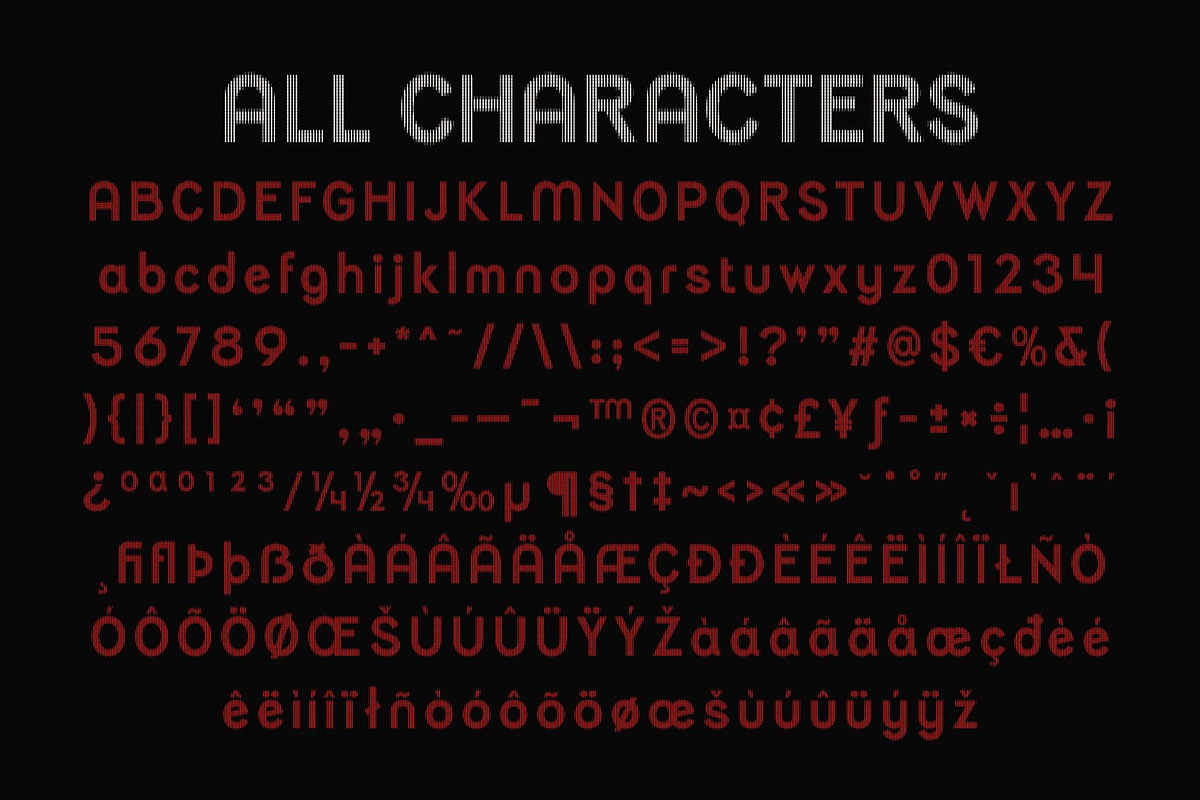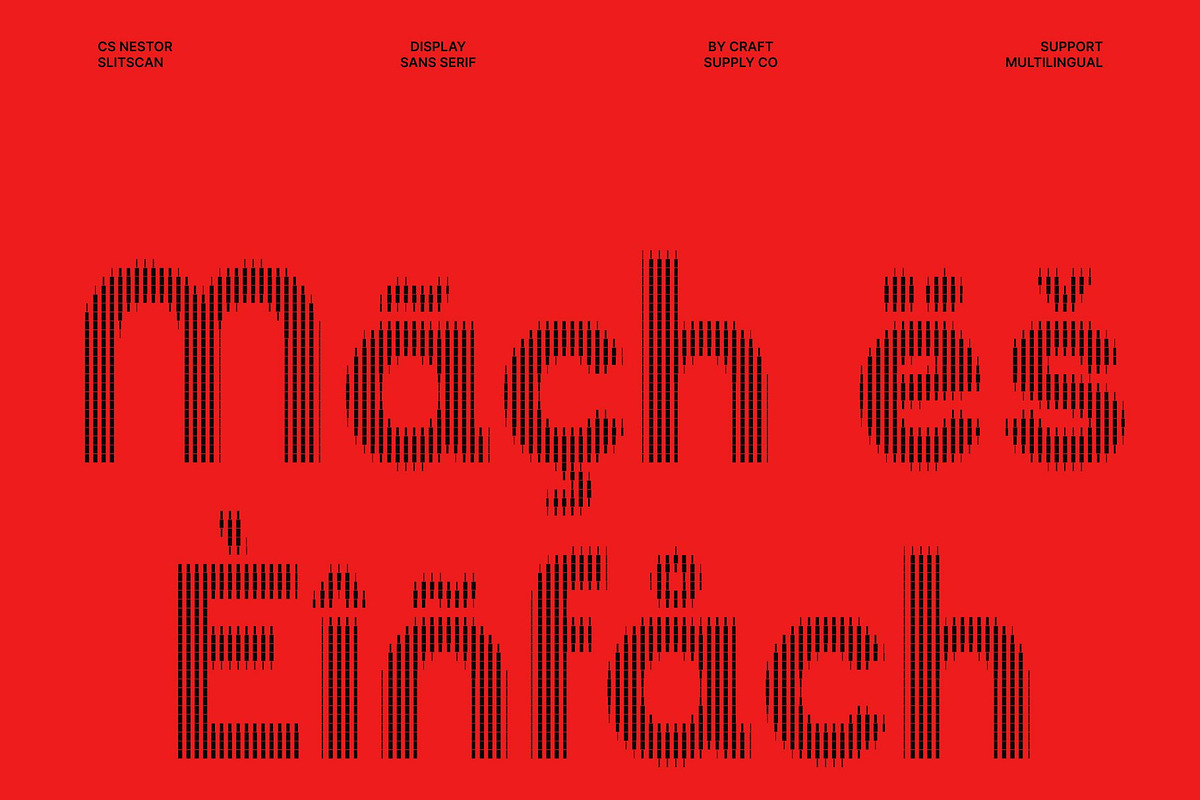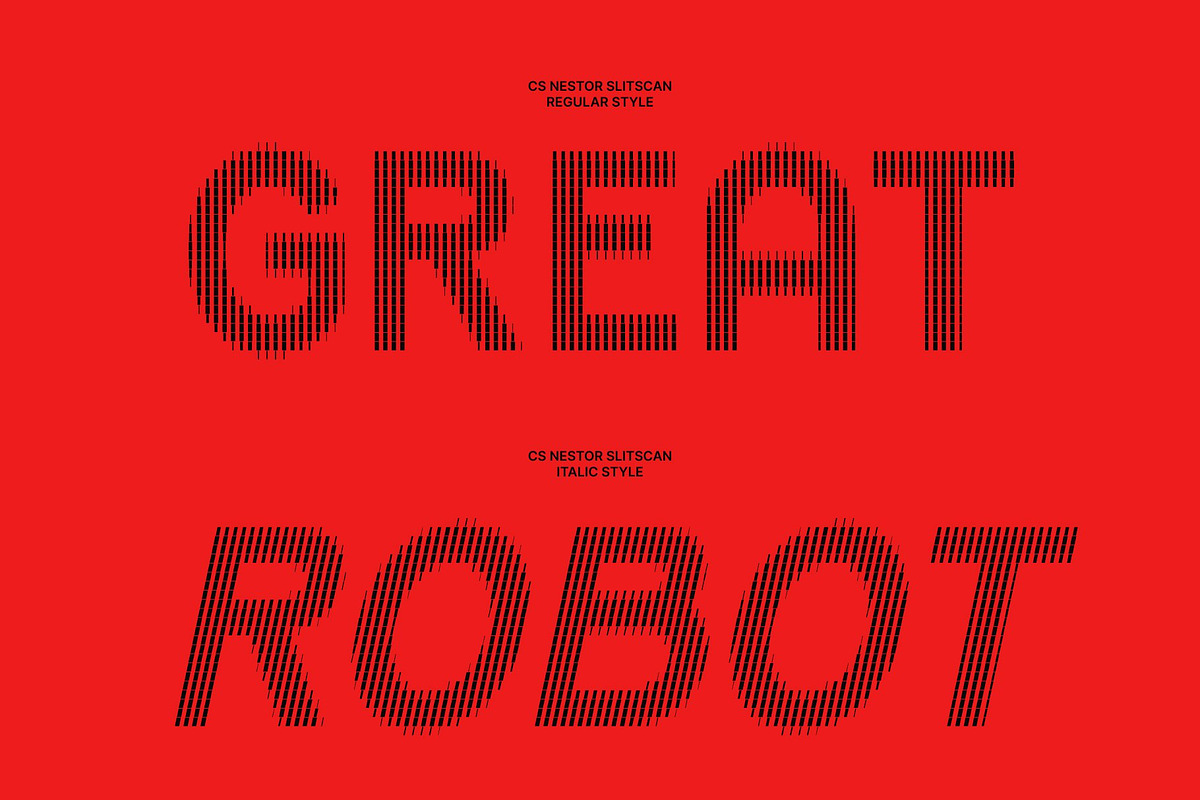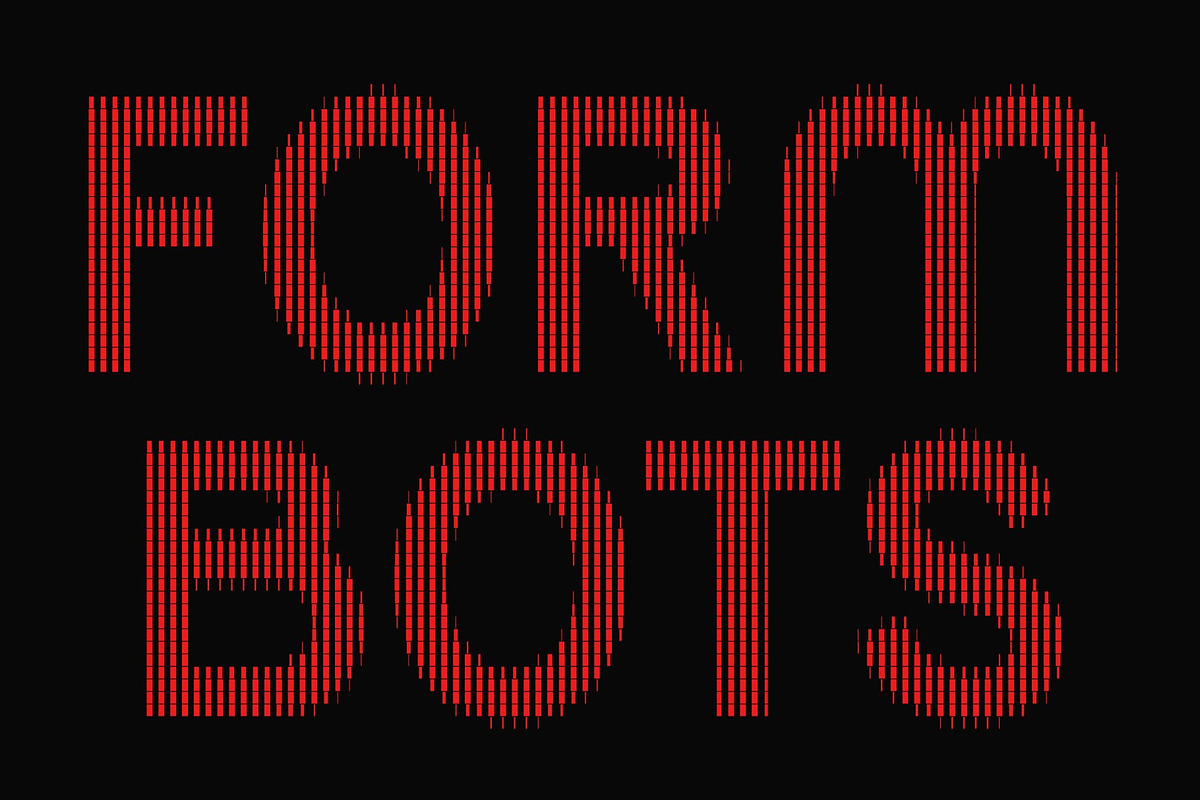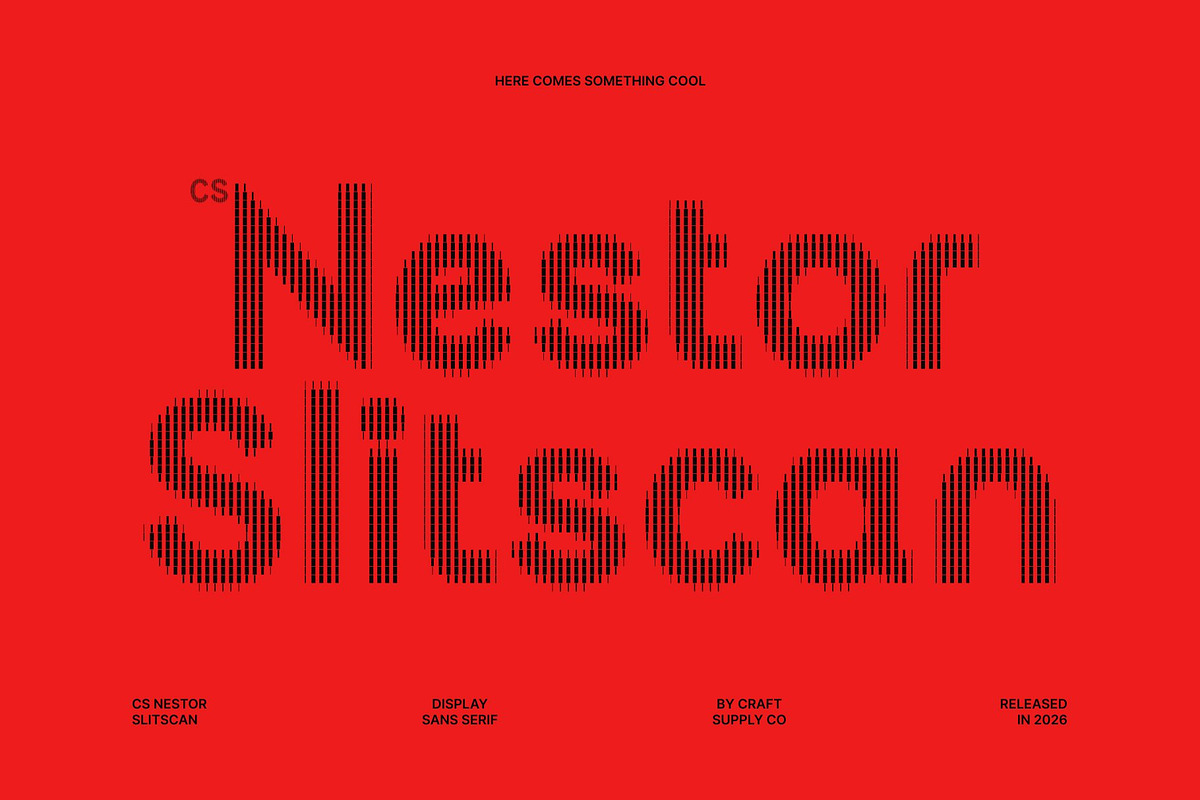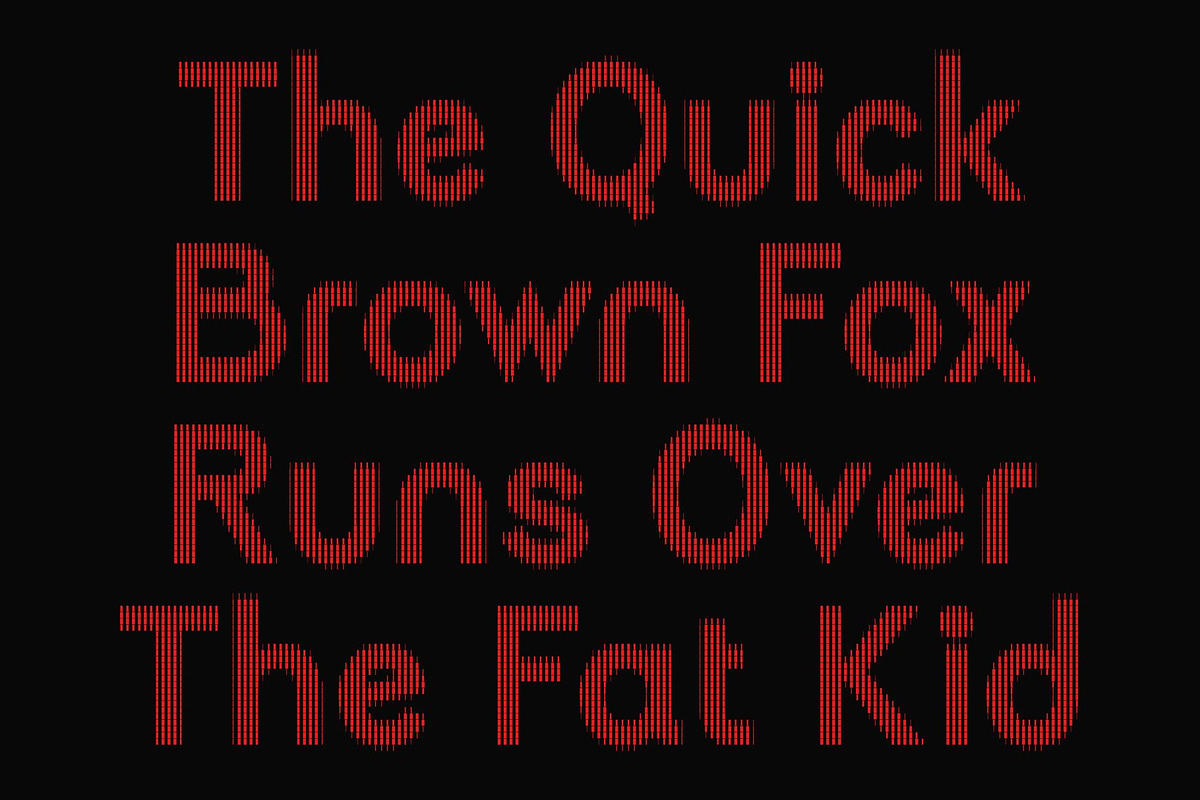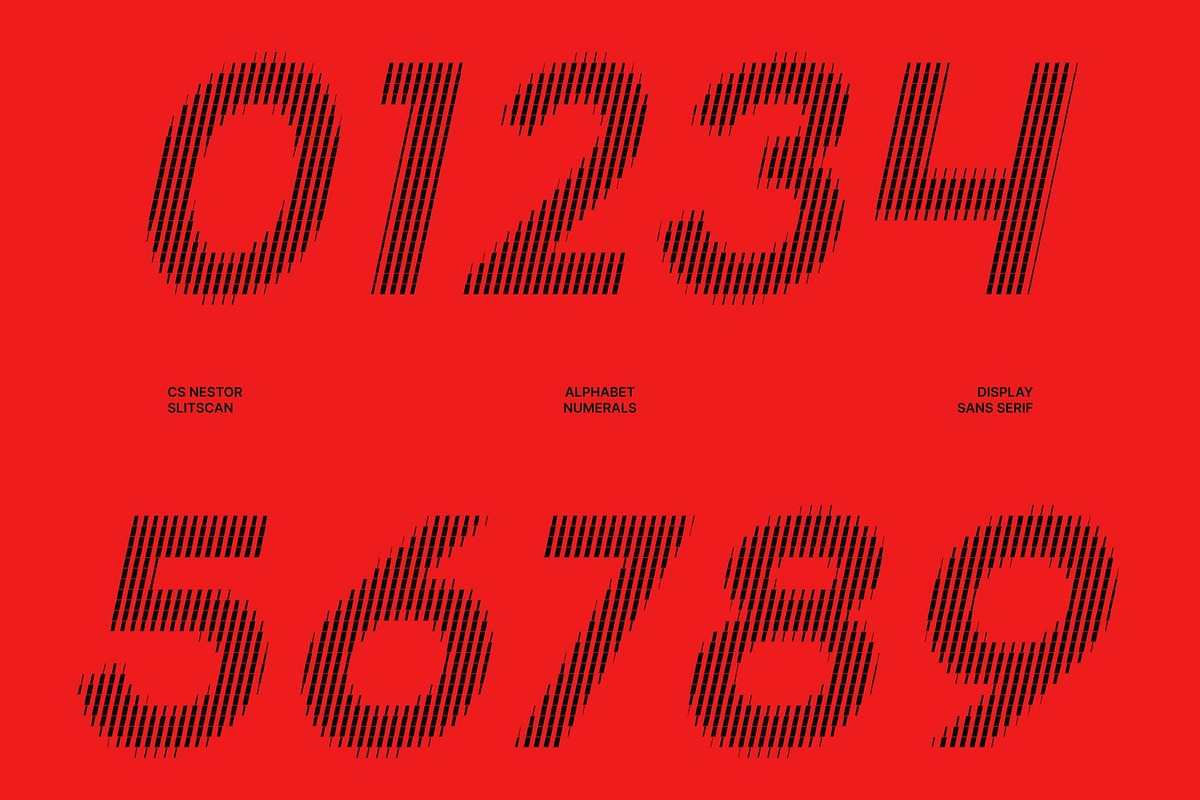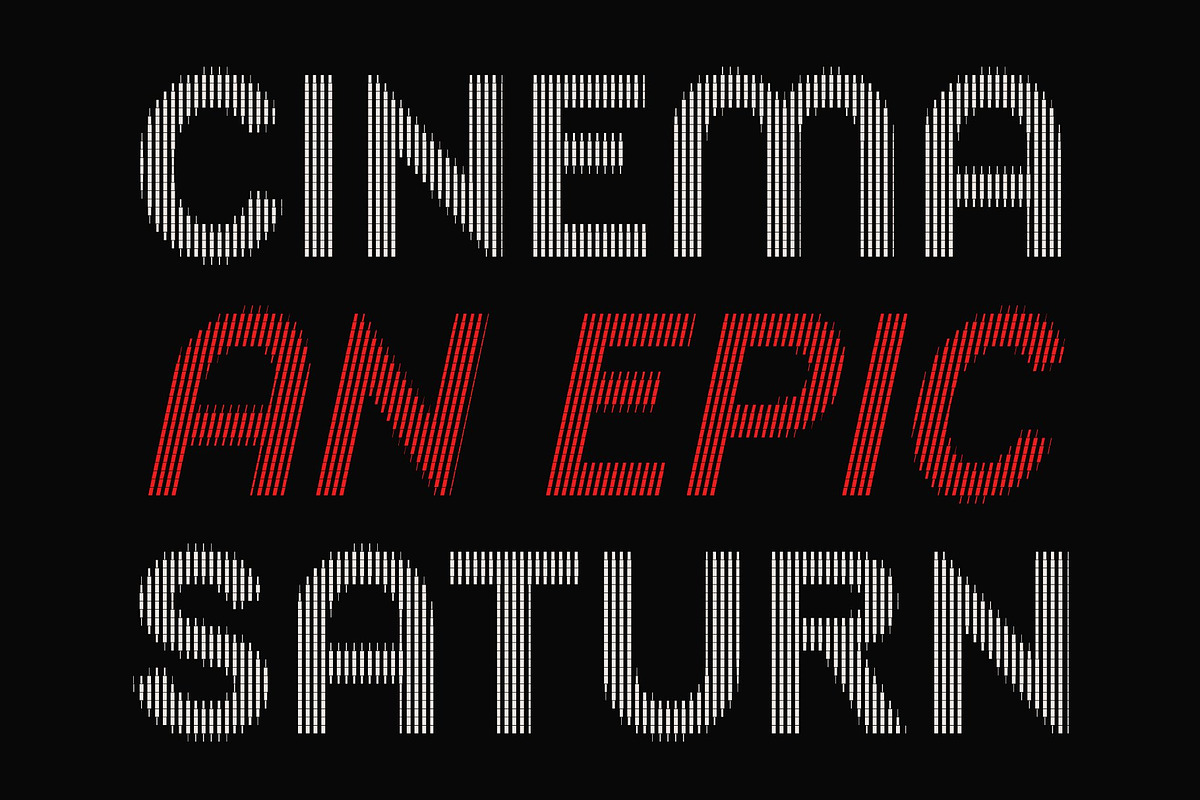
CS Nestor Slitscan
CS Nestor Slitscan – Contemporary Sans Serif Display Font: Where Industrial Precision Meets Futuristic Motion
Striking Modern Forms with Industrial Clarity This is a contemporary sans serif display font designed with precision, clarity, and versatility in mind. Built with an industrial spirit and engineered for visual impact, its bold modern shapes create a commanding presence that feels sleek, professional, and highly futuristic. Every character is crafted to capture attention while maintaining strong readability, making the font ideal for impactful modern design compositions.
Slitscan Effect with Futuristic Digital Distortion This font features vertical cut-out layers and fragmented visual motion inspired by slit-scan photography and glitch aesthetics. This multi-layered effect creates a sense of speed, distortion, and digital movement that feels experimental and immersive. The result is a typographic appearance infused with cyberpunk atmosphere, futuristic energy, and motion-driven visual depth.
Cyberpunk Aesthetic with Experimental Motion Energy This font delivers a typographic identity that feels technological, edgy, and visually electrifying. Its layered forms and digital fragmentation evoke glitch art, futuristic interfaces, sci-fi visuals, and experimental electronic culture, making it ideal for high-concept modern projects.
Perfect for Sci-Fi Posters and Digital Events This font suitable for sci-fi posters, experimental electronic album covers, technology competitions, digital events, gaming visuals, futuristic branding, streaming graphics, and modern promotional materials. Its slitscan-styled forms make it ideal for logos, headlines, interfaces, apparel graphics, and visual identities that seek a professional yet experimental futuristic appearance.